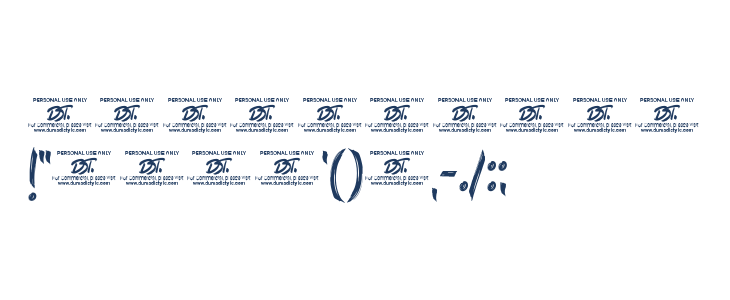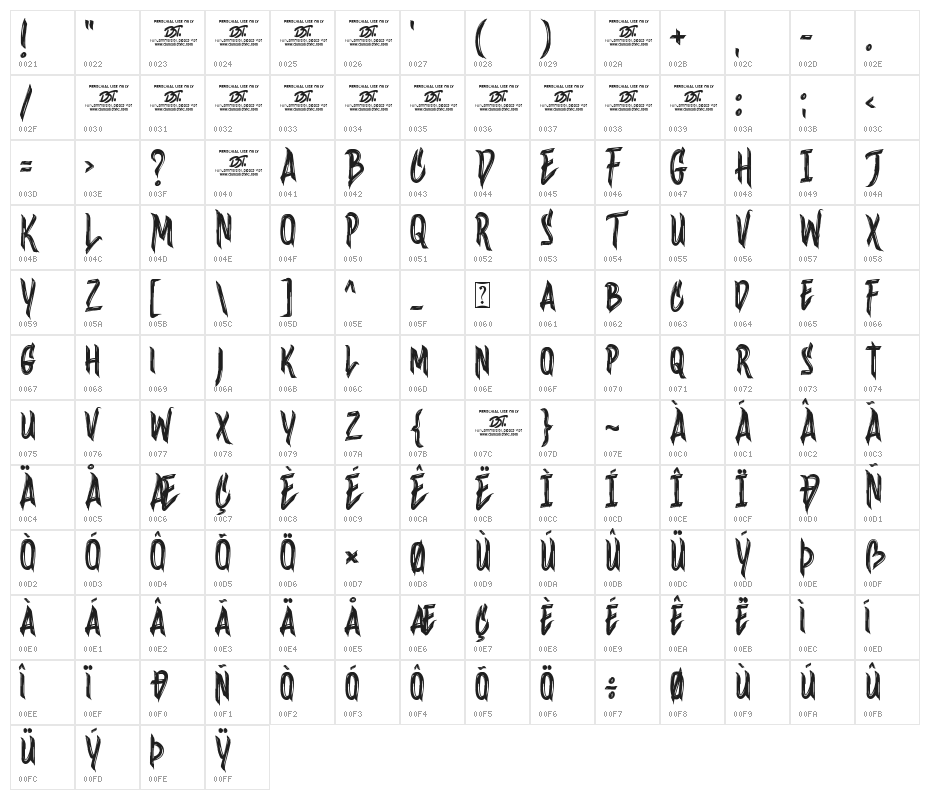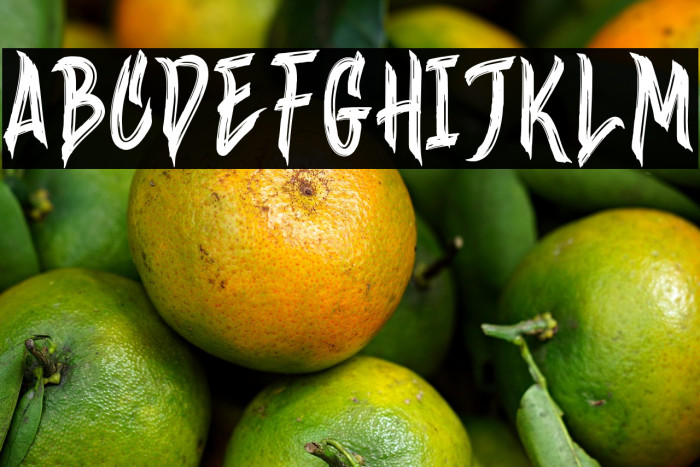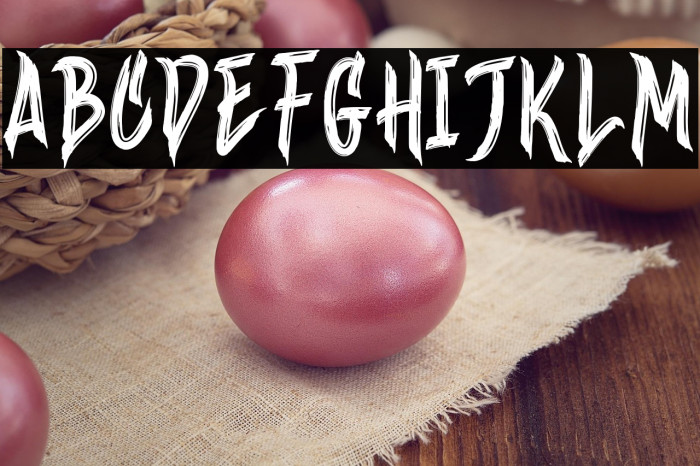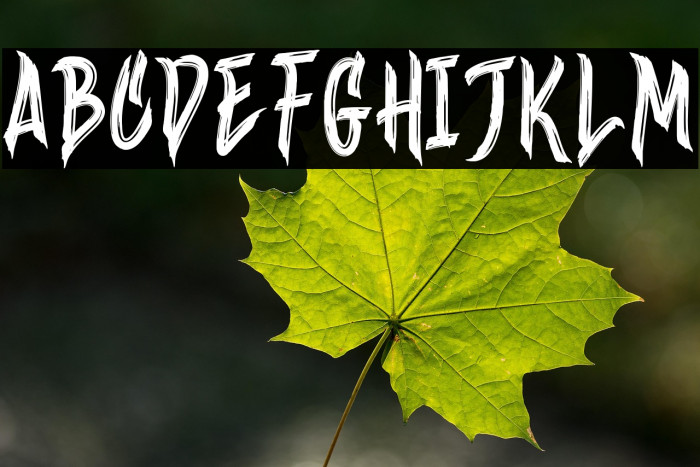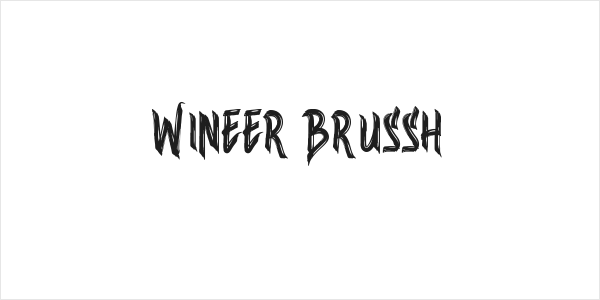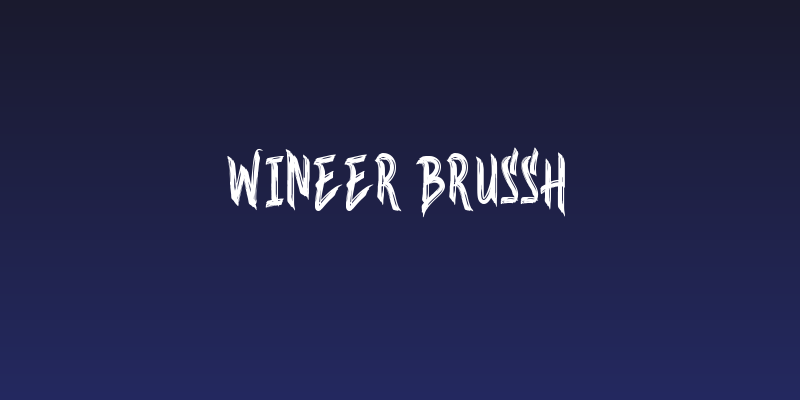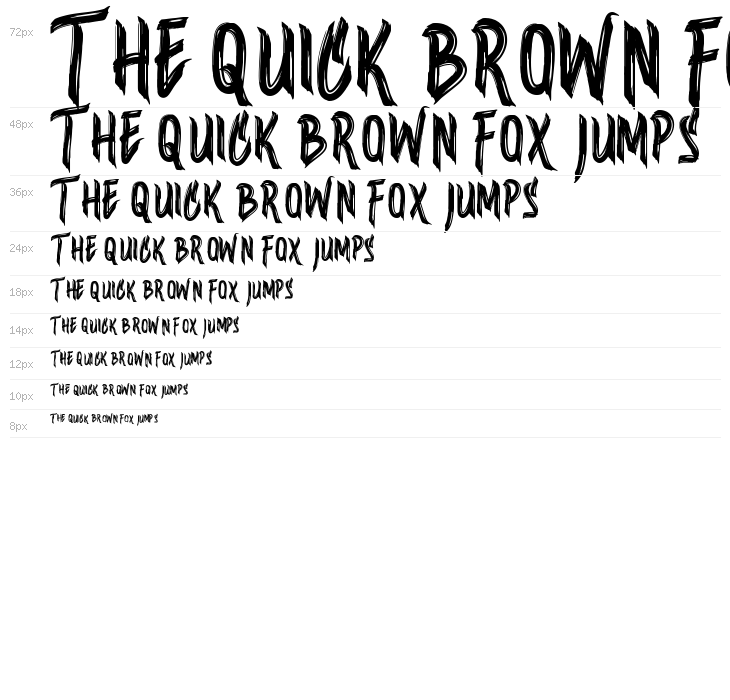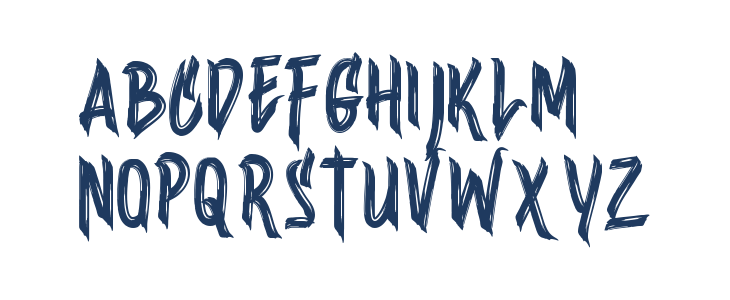
Wineer Brussh Font
Wineer Brussh Description
This font features a bold, expressive brush style that exudes energy and dynamism. The strokes are thick and irregular, giving it a hand-painted appearance. The letters are slightly slanted, adding a sense of movement and fluidity. The uppercase and lowercase characters maintain a consistent style, with a rough texture that enhances its artistic flair. The numbers and special characters are equally bold, ensuring a cohesive look across all text elements. This font is ideal for projects that require a strong, impactful visual presence.